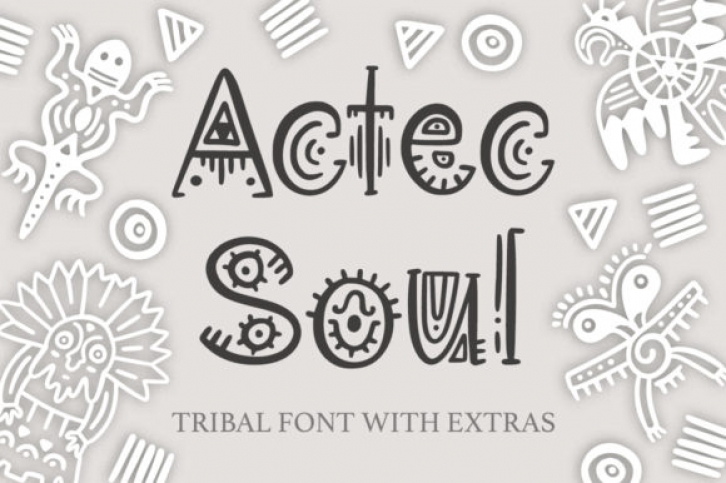
The Aztec Soul is a detailed display font. It has beautiful hand drawn textures of tribal Aztec ornaments in every letter.
You also get 25 decorative Aztec ornament elements to decor your texts, and make amazing prints for different creative things.
So It’s not just a font, it is a complete creative set, created for beautiful typographic projects!